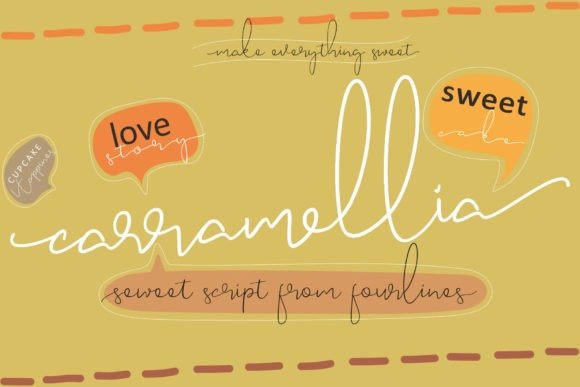
Carramellia Handwritten Font
Carramellia is cute script font that’s great for modern-looking crafts. It’s playful and sweet. It will add a warm feeling to any crafting design, be it wedding or holiday craft, invitations, and much more.